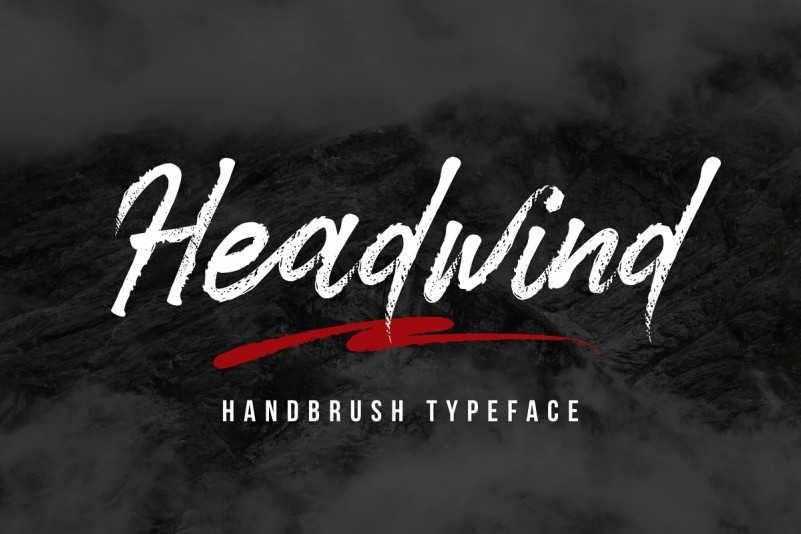
Headwind Font
Headwind Handbrush Typeface is a font created with the Brush application with a natural texture. so you can make this font the right choice for your project design.
Headwind is perfect for design, logos, social media, branding, advertising, product design, handwritten quotes, product packaging, headers, posters, merchandise, and other designs.